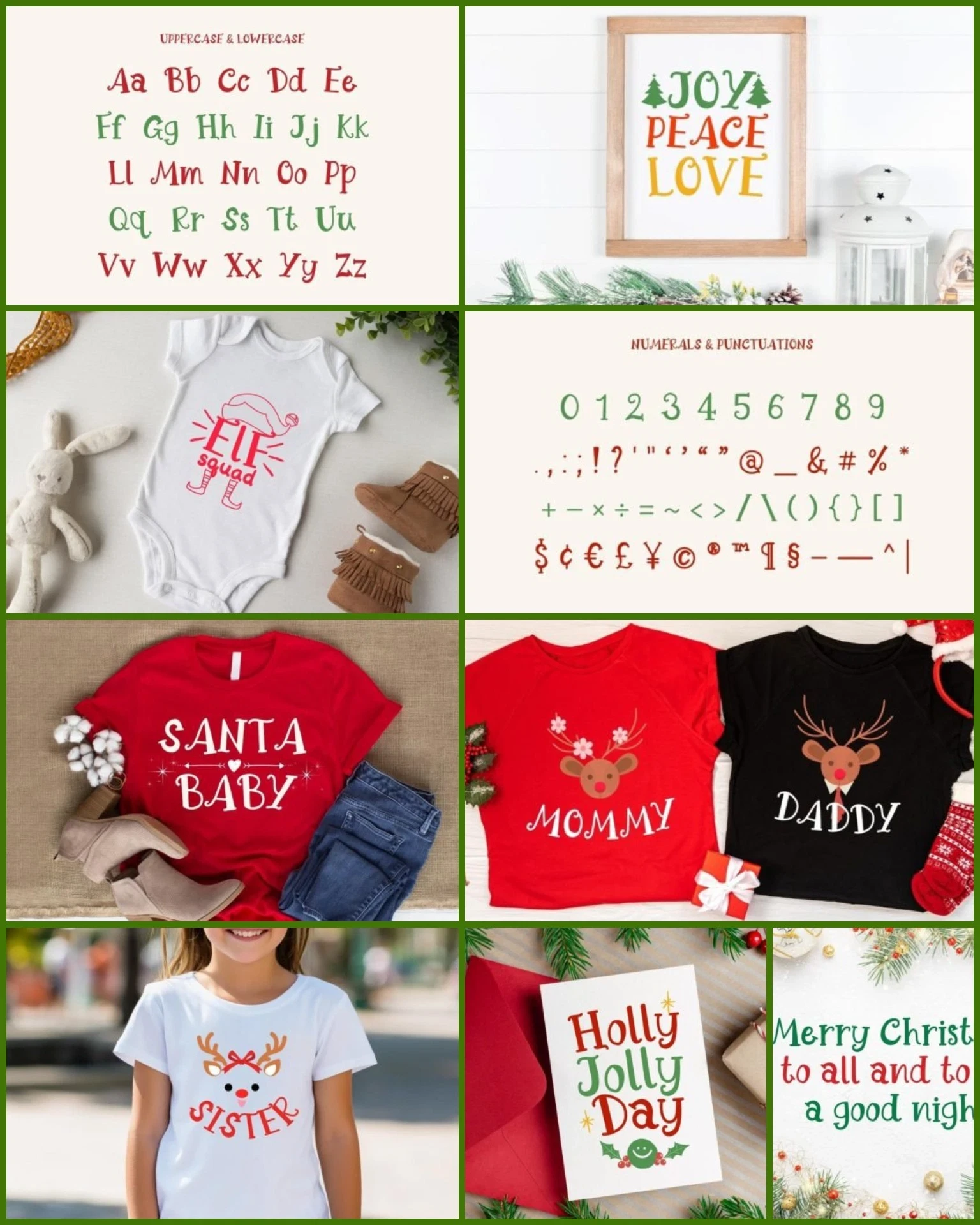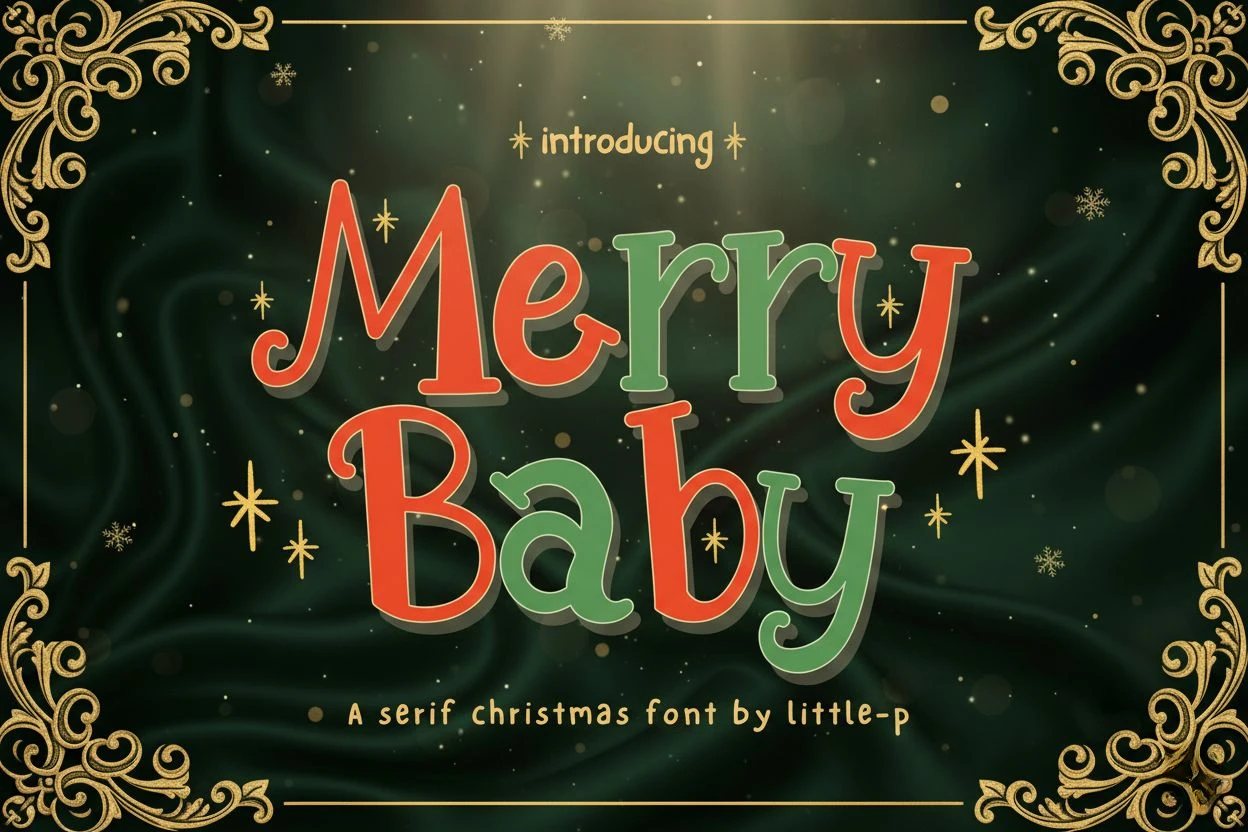
Merry Baby is a festive handwritten serif Christmas font that brings warmth, joy, and playful holiday charm to every design. With its soft curves and cheerful handwritten style, this Christmas typeface captures the magical spirit of winter celebrations and adds a cozy, heartwarming touch to your creative projects.
Perfect for Christmas cards, greeting tags, holiday invitations, posters, T-shirts, stickers, ornaments, and festive merchandise, Merry Baby is designed to make your seasonal creations stand out. Its friendly handwritten serif look makes every message feel personal, joyful, and full of holiday spirit. Ideal for Cricut and Silhouette crafts, print-on-demand products, social media graphics, and all your Christmas crafting ideas.
Whether you're creating cozy winter designs or spreading Christmas joy through handmade gifts, Merry Baby is the perfect holiday font to brighten your work with festive magic.